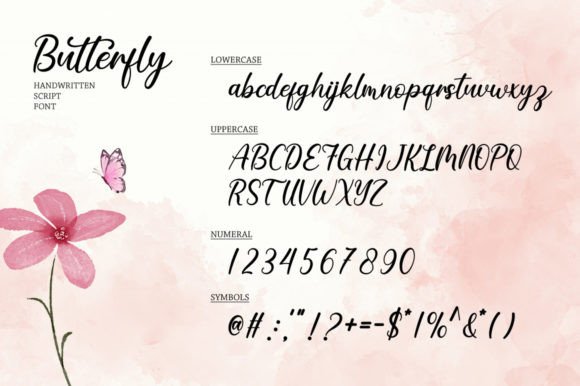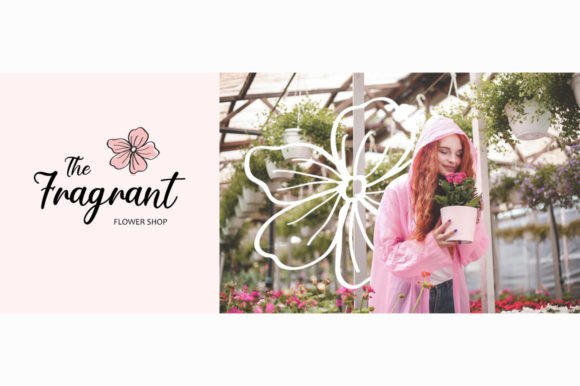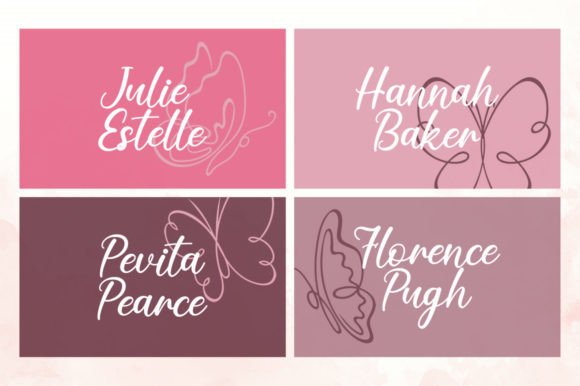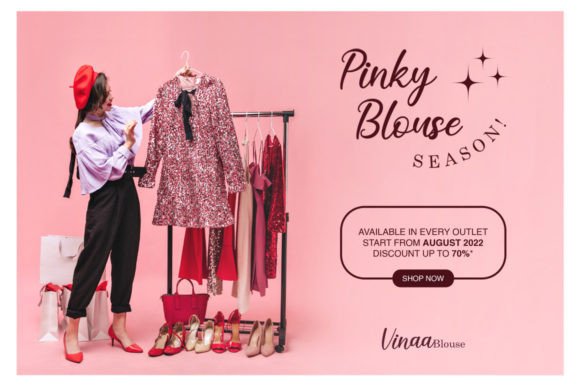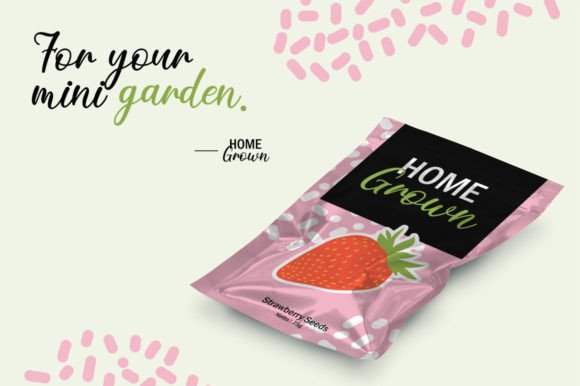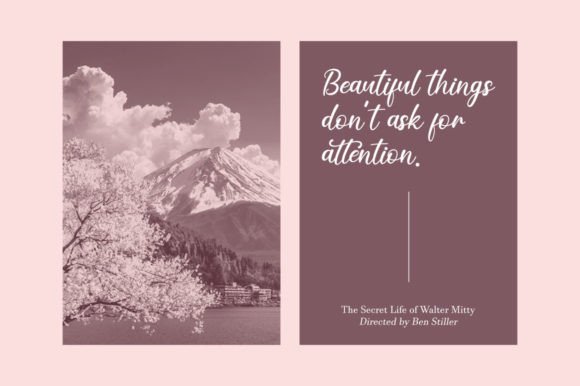
The Magic of Handwritten Fonts
Have you ever found yourself scribbling down a quote in a journal, only to realize that the messy handwriting has become a work of art in itself? That’s the magic of handwritten fonts – they add a personal touch to any design. Whether it’s a heartfelt thank you note or a professional business card, the right font can make all the difference.
Enter the enchanting Butterfly Font, a magical handwritten font that’s perfect for adding a customized touch to any design. With its ravishing appearance, it’s a designer’s dream come true. From invitations to logos, the Butterfly Font is sure to make a statement and leave a lasting impression.
Key Features of Butterfly Font
- Unique Characteristics: The font features a delicate, hand-painted feel with intricate details and subtle texture, giving it a distinctive and elegant appearance.
Butterfly Font Review
Overall, I think the Butterfly Font has a lot of potential, but it also has some limitations that might make it less desirable for certain projects. ✨
- Unique Design: The Butterfly Font has a distinctive and whimsical design that sets it apart from other fonts.
- Playful Feel: The font has a playful feel that’s perfect for projects that need a lighthearted tone.
- Good for Titles: The font is great for titles and headings due to its larger size and bold design.
- Readability: At smaller font sizes, the Butterfly Font can be difficult to read, especially for text-heavy content.
- Limited Use: The font’s playful design might not be suitable for projects that require a more formal or serious tone.
- Compatibility Issues: I’ve experienced some compatibility issues with the font on certain platforms and devices.
Overall, the Butterfly Font is a great choice for projects that need a playful and whimsical touch, but it might not be the best option for more formal or text-heavy content. ⚠️
Butterfly Font is a whimsical and elegant font that works well for:
- Baby shower invitations and decorations
- Food and drink labels
- Stationery and greeting cards
Remember to pair Butterfly Font with a clear and readable font for body text to achieve a balanced look.
Alternatives to Butterfly Font for Designers
Pacifico is a beautiful, elegant script font ideal for creating a warm and inviting atmosphere. It’s perfect for use in wedding invitations, greeting cards, and other romantic designs. Pacifico has a similar flowing feel to the Butterfly Font but with a more refined and sophisticated look.
Great Vibes is a modern, handwritten font that works well for creating a fun and lively atmosphere. It’s great for use in advertising, social media, and other designs that require a bold and eye-catching look. Great Vibes has a more energetic feel than the Butterfly Font but can be used in similar contexts.
Carolyna Pro is a elegant, modern script font that’s perfect for use in luxury brands, high-end designs, and editorial content. It has a similar level of sophistication to the Butterfly Font but with a more refined and polished look.
Alex Brush is a beautiful, elegant script font that’s perfect for use in creative and artistic designs. It has a more organic and hand-painted feel than the Butterfly Font but can be used in similar contexts for a unique and eye-catching look.